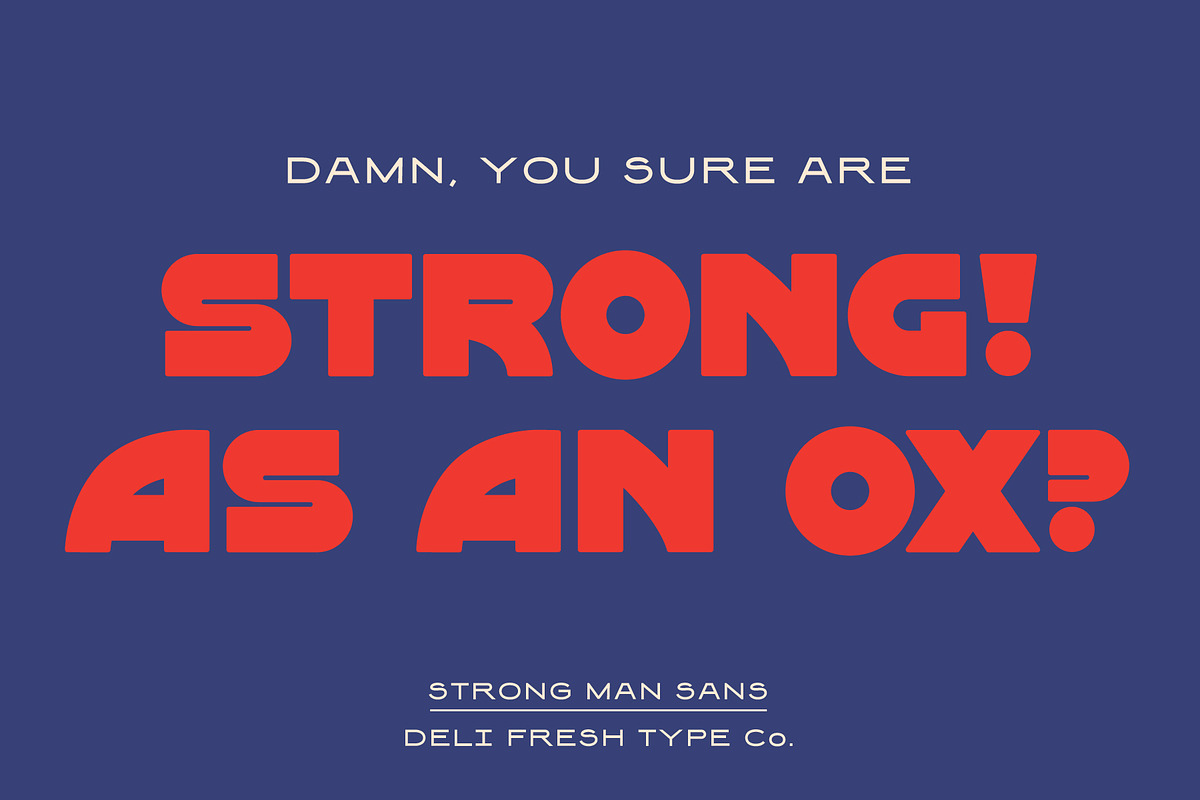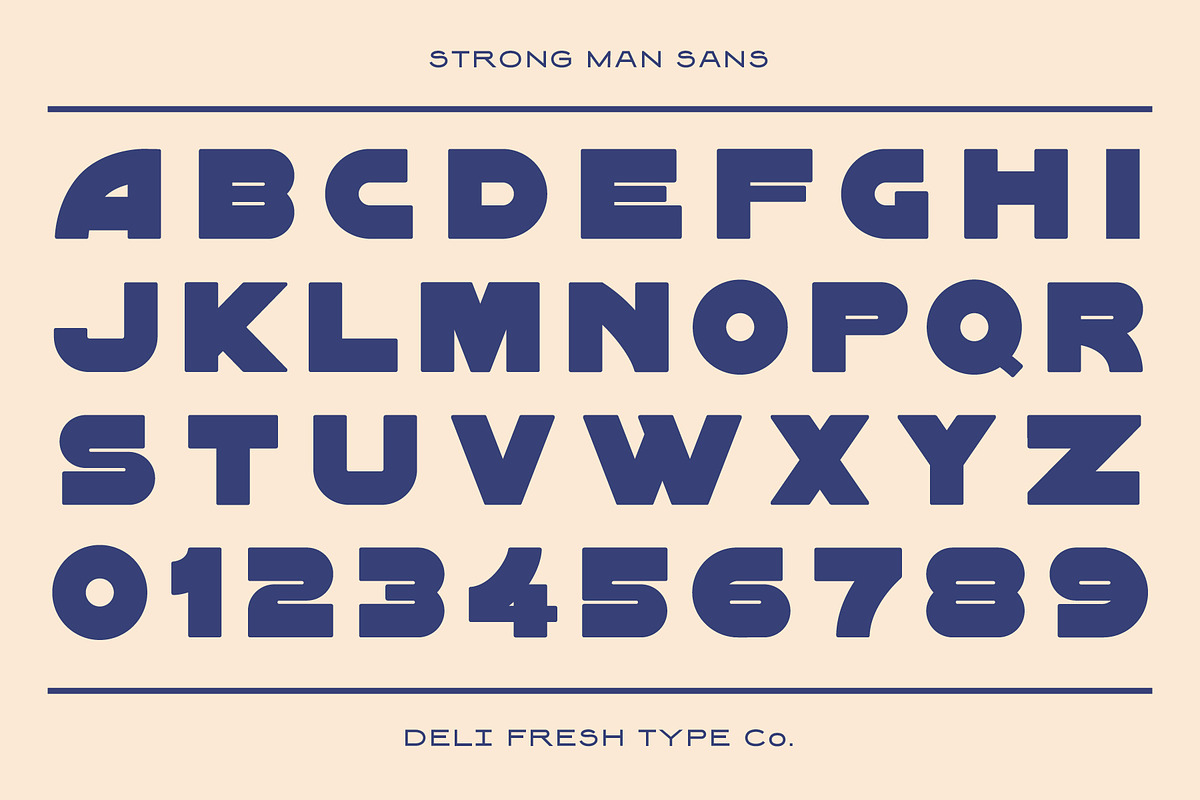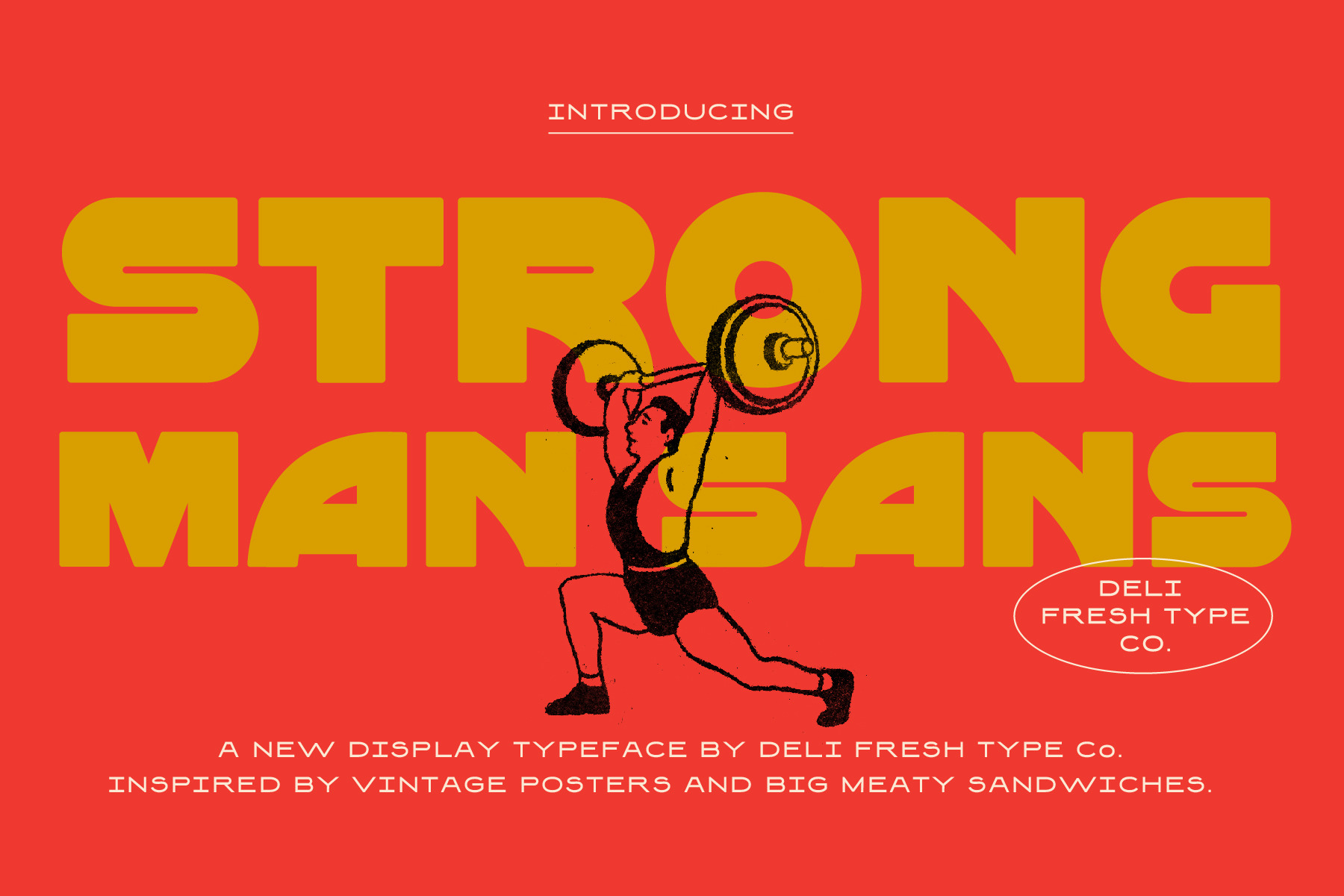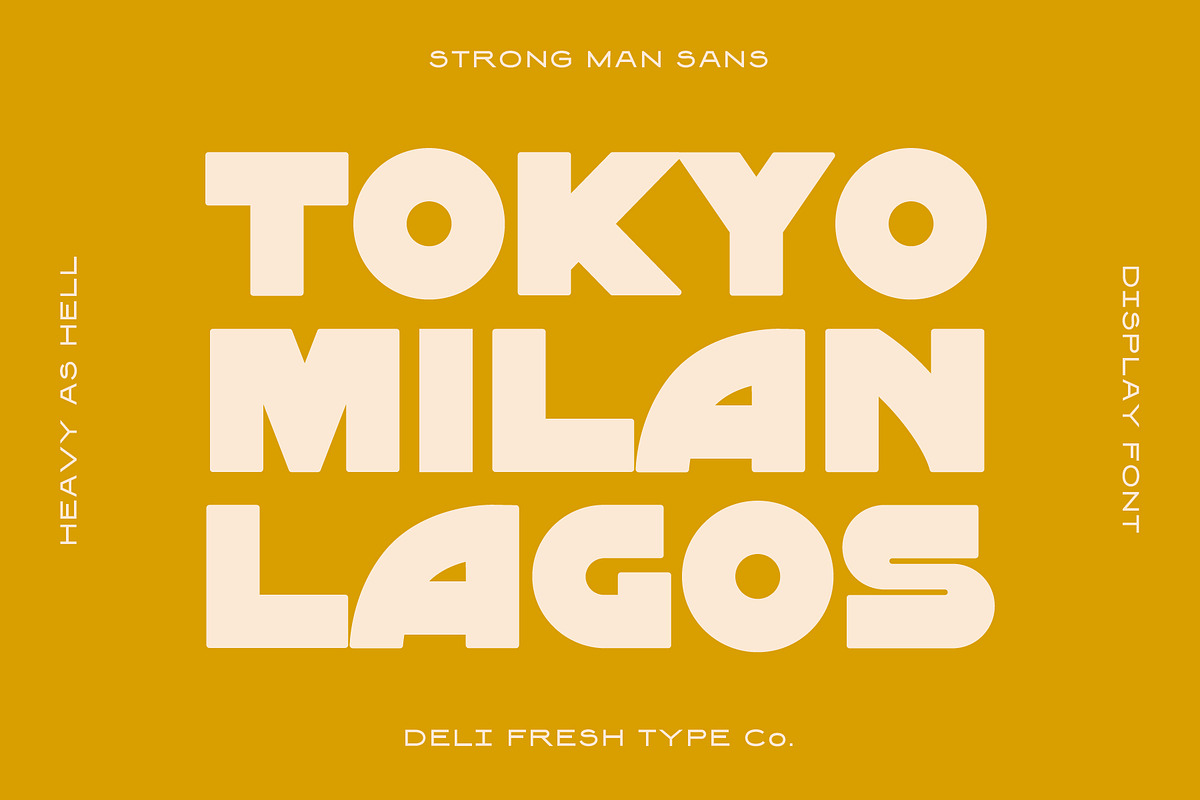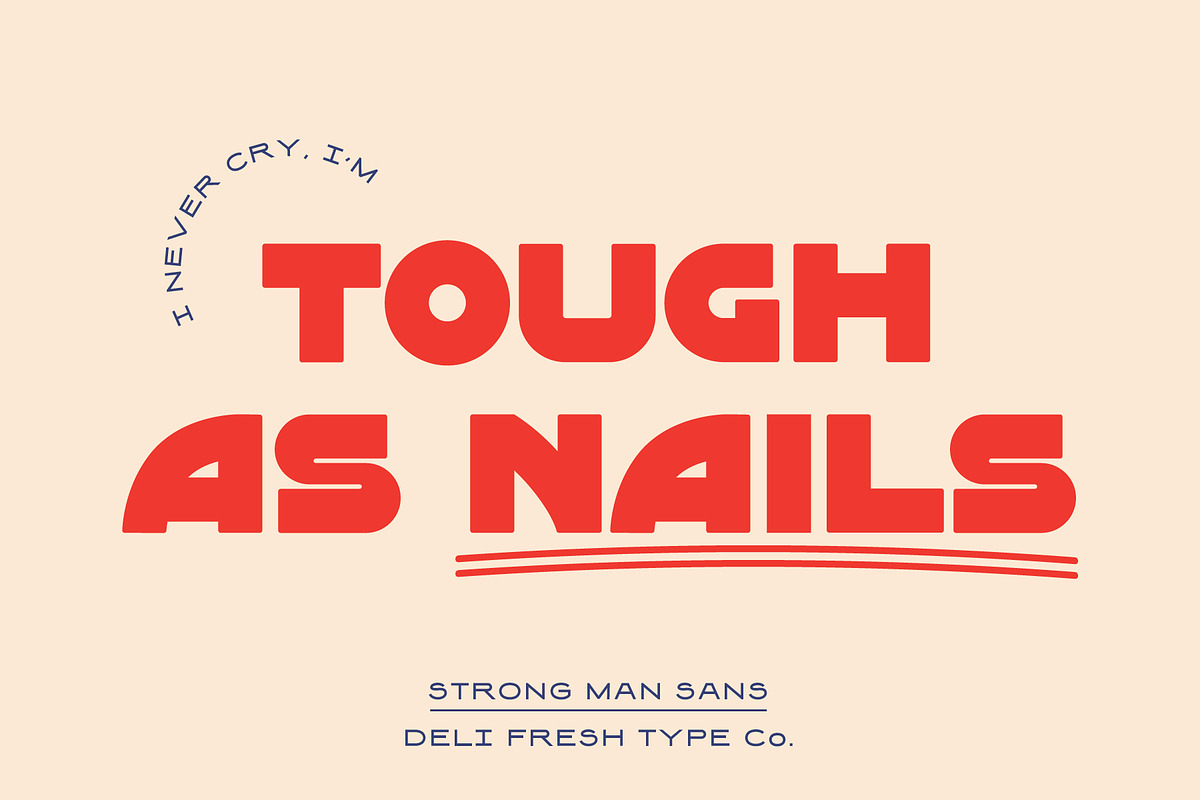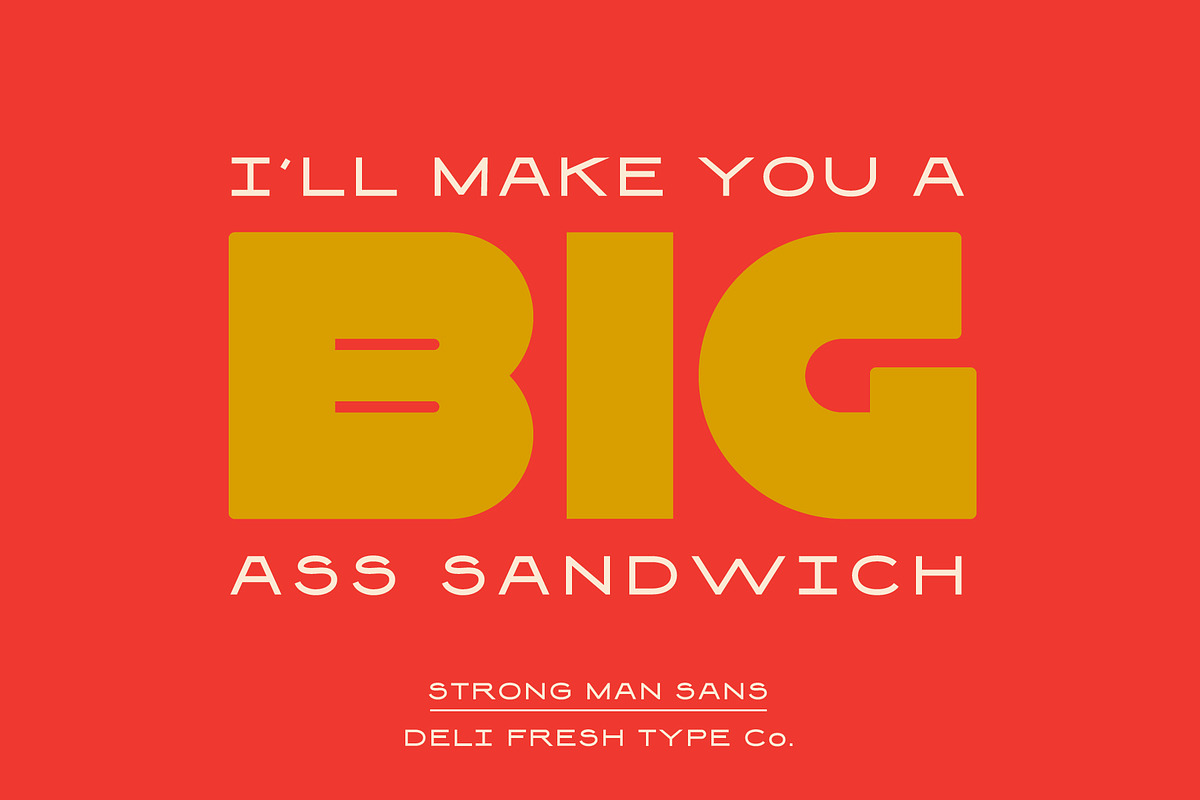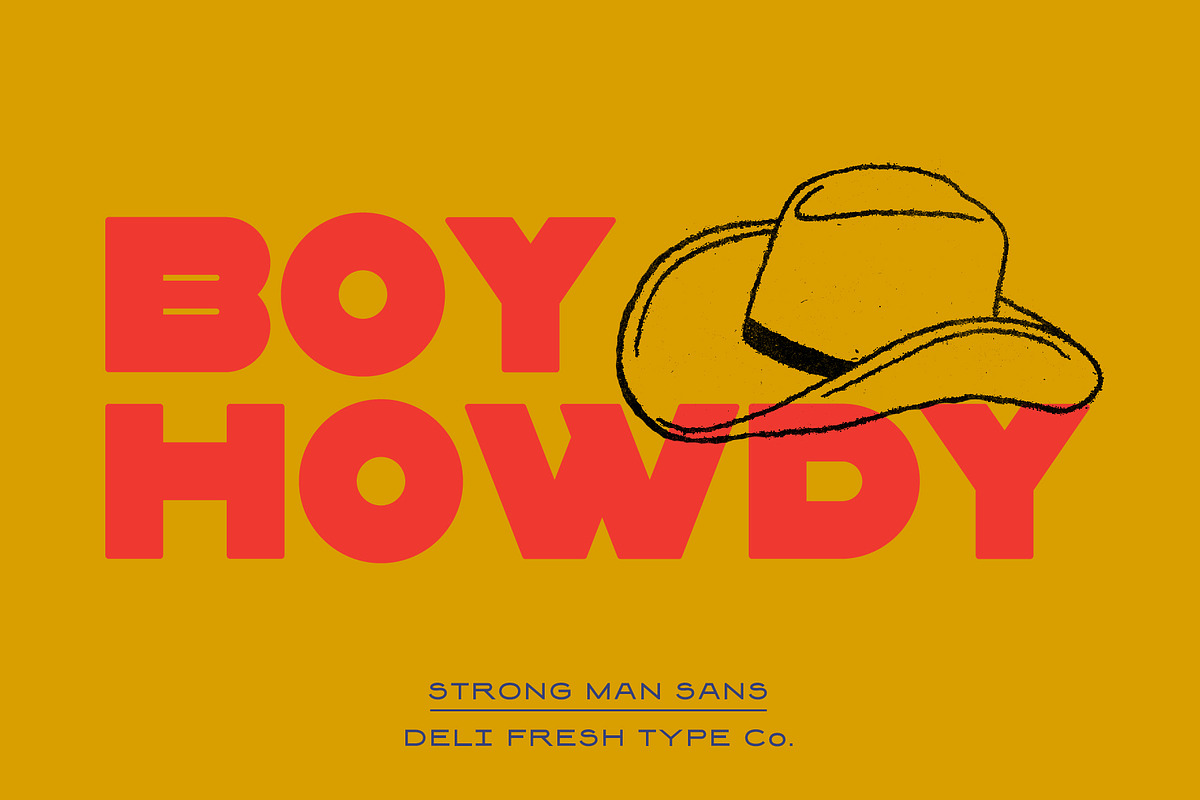
Strong Man Sans: Heavy Display Font
A new display typeface inspired by vintage posters and big meaty sandwiches.
Comes with upper-case letterforms, numerals, and a couple special characters & punctuation marks.